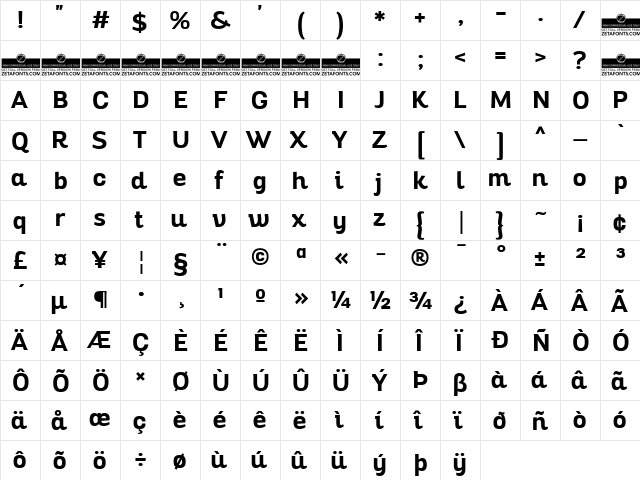
Altair Bold Font Preview
Altair Bold
Altair Bold Font Details
| Foundry | Zetafonts |
| Designer | Francesco Canovaro |
Design Context for Altair Typeface
Altair offers clean, dependable letterforms without strong stylistic allegiance, making it a practical choice for designers who need flexibility. The heavy weight commands attention and anchors typographic hierarchies.